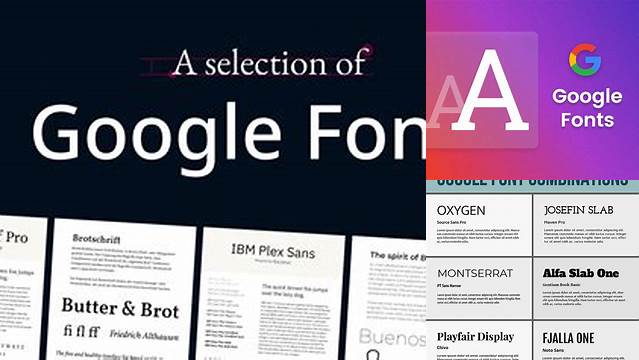
Best Google Fonts: Combinations For Stunning Designs
Choosing the right font can significantly impact the look and feel of your website or design project. Fonts play a crucial role in conveying your message and creating a visual hierarchy. With a vast library of fonts available, Google Fonts offers a fantastic resource for designers and developers alike. However, with so many options, finding the perfect font combination can feel overwhelming. This guide will walk you through the process of selecting the best Google Fonts combination for your specific needs, providing practical tips and examples to help you make informed decisions.
Understanding Font Pairing Basics
Before diving into specific font combinations, itβs essential to understand the basic principles of font pairing. The goal is to create a harmonious and visually appealing design by combining fonts that complement each other. A well-paired font combination enhances readability, reinforces your brand identity, and elevates the overall aesthetic of your project. Think of it like putting together an outfit β you want pieces that work well together and create a cohesive look. When it comes to fonts, this means considering factors like contrast, hierarchy, and the overall tone you want to convey. For example, a clean and modern sans-serif font might pair well with a more classic serif font to create a balance between contemporary and traditional elements. Understanding these fundamentals will set you on the right path to mastering the art of font pairing.
Why is Font Pairing Important?
Font pairing is incredibly important because it directly impacts how your audience perceives your content. The right font combination can make your website or design project look professional, polished, and engaging. Conversely, a poor font pairing can make your content appear cluttered, confusing, or even amateurish. Consider the psychology of fonts β different fonts evoke different emotions and associations. A playful script font might be perfect for a children's book, but it would likely be out of place on a corporate website. Similarly, a heavy, bold font can convey strength and authority, while a light, delicate font might communicate elegance and sophistication. By carefully selecting fonts that work well together, you can create a visual experience that aligns with your brand and effectively communicates your message. Effective font pairing enhances readability, ensuring that your content is easy to digest. It also establishes a visual hierarchy, guiding the reader's eye and highlighting important information. Ultimately, the right font pairing is a powerful tool for enhancing your design and improving the user experience.
Key Principles of Font Pairing
To create a successful font pairing, there are several key principles to keep in mind. First, contrast is essential. Pairing a serif font with a sans-serif font is a classic approach because it provides visual distinction. Serif fonts, with their small decorative strokes, tend to convey a sense of tradition and formality, while sans-serif fonts, which lack these strokes, often appear more modern and clean. This contrast helps to differentiate between headings and body text, making your content more readable. Second, hierarchy is crucial for guiding the reader through your content. Use different font sizes and weights to establish a clear visual structure. For example, you might use a larger, bolder font for headings and a smaller, lighter font for body text. This helps readers quickly scan the page and understand the main points. Third, consider the overall tone of your design. Are you aiming for a professional and authoritative look, or something more playful and creative? The fonts you choose should reflect this tone. Finally, don't be afraid to experiment, but always ensure that your font choices are legible and harmonious. A good rule of thumb is to stick to a maximum of two or three fonts per project to avoid visual clutter. By following these principles, you can create font pairings that enhance your design and effectively communicate your message.
Top Google Font Combinations for 2024
Now, let's explore some of the top Google Font combinations that are popular in 2024. These pairings are not only visually appealing but also highly functional, making them suitable for a wide range of projects, from websites and blogs to marketing materials and presentations. We'll break down each combination, explaining why it works and suggesting the types of projects for which it's best suited. Whether you're looking for a classic and elegant pairing, a modern and minimalist combination, or something bold and creative, you'll find inspiration in this list. Remember, the best font combination for you will depend on your specific needs and preferences, but these examples offer a great starting point for your font pairing journey. By understanding why these combinations work well together, you can develop your own eye for effective font pairings and create designs that stand out.
1. Montserrat & Oswald
Montserrat and Oswald is a classic and versatile combination that works well for a variety of projects. Montserrat, a sans-serif font, has a clean and modern feel, making it ideal for headings and titles. Its geometric shapes and balanced letterforms give it a contemporary yet approachable vibe. Oswald, another sans-serif font, is slightly bolder and more condensed, making it a great choice for subheadings and body text. The contrast between the two fonts creates visual interest while maintaining a cohesive look. This combination is particularly well-suited for websites, blogs, and marketing materials that aim for a professional and polished appearance. The readability of both fonts ensures that your content is easy to scan and digest, while their distinct personalities add a touch of sophistication. Whether you're designing a corporate website or a stylish blog, Montserrat and Oswald is a reliable pairing that will elevate your design.
2. Open Sans & Roboto
Open Sans and Roboto is a pairing that embodies simplicity and readability. Open Sans, a humanist sans-serif font, is known for its clean lines and open forms, making it incredibly easy to read in a variety of sizes. Roboto, a neo-grotesque sans-serif font, has a dual nature, offering both a mechanical skeleton and friendly curves, which makes it versatile for both headings and body text. The combination of these two fonts creates a balanced and harmonious look, perfect for websites, applications, and user interfaces. Open Sans excels in longer passages of text, while Roboto adds a touch of modernity and technical flair. This pairing is particularly effective for projects that prioritize clarity and usability, such as educational websites, informational dashboards, and minimalist designs. The fonts' neutral personalities allow your content to take center stage, ensuring that your message is communicated effectively. If you're looking for a font combination that's both functional and aesthetically pleasing, Open Sans and Roboto is an excellent choice.
3. Playfair Display & Montserrat
Playfair Display and Montserrat is an elegant and sophisticated combination that blends tradition with modernity. Playfair Display, a transitional serif font, exudes timeless charm with its delicate serifs and graceful curves. It's particularly well-suited for headings, titles, and other display purposes where a touch of elegance is desired. Montserrat, as mentioned earlier, is a clean and modern sans-serif font that complements Playfair Display beautifully. The contrast between the serif and sans-serif fonts creates a visually appealing balance, making this pairing ideal for projects that aim to convey a sense of luxury and sophistication. This combination works exceptionally well for fashion blogs, wedding invitations, high-end branding, and editorial designs. The Playfair Display adds a touch of formality and refinement, while Montserrat ensures that the overall design remains accessible and contemporary. If you're looking to create a design that's both stylish and readable, Playfair Display and Montserrat is a winning combination.
4. Lato & Lora
Lato and Lora offer a harmonious blend of modernity and readability, making them an excellent choice for a wide range of projects. Lato, a sans-serif font, is known for its clean and transparent design, which makes it incredibly versatile for both headings and body text. Its semi-rounded details add a touch of warmth and friendliness, making it approachable and easy to read. Lora, a serif font, has roots in calligraphy, giving it an elegant and refined appearance. It's particularly well-suited for body text, where its well-balanced letterforms and distinct serifs enhance readability. The combination of Lato and Lora creates a balanced and inviting aesthetic, perfect for blogs, online magazines, and websites that prioritize user engagement. This pairing is especially effective for content-rich sites where readability is paramount. Lora's classic serif style adds a touch of sophistication, while Lato's modern sans-serif design ensures that the overall look remains fresh and contemporary. If you're looking for a font combination that's both stylish and functional, Lato and Lora is a fantastic choice.
5. Raleway & Roboto
Raleway and Roboto is a modern and versatile pairing that works well for a variety of design projects. Raleway, a sans-serif font, has an elegant and slightly geometric design, making it a great choice for headings and titles. Its clean lines and distinct letterforms give it a sophisticated yet approachable feel. Roboto, as discussed earlier, is a neo-grotesque sans-serif font that offers both a mechanical skeleton and friendly curves, making it versatile for both headings and body text. The combination of these two fonts creates a balanced and harmonious look, perfect for websites, applications, and marketing materials. Raleway adds a touch of elegance and modernity, while Roboto ensures that the overall design remains readable and user-friendly. This pairing is particularly effective for projects that require a clean and contemporary aesthetic, such as tech websites, startups, and digital agencies. The contrast between the two fonts creates visual interest while maintaining a cohesive look. If you're looking for a font combination that's both stylish and functional, Raleway and Roboto is an excellent choice.
In conclusion, selecting the best Google Fonts combination is a crucial step in creating visually appealing and effective designs. By understanding the principles of font pairing, exploring popular combinations, and utilizing available tools and resources, you can confidently choose fonts that align with your brand, enhance readability, and elevate the overall aesthetic of your project. Remember to consider your brand identity, the purpose of your design, and the importance of legibility and readability. Don't be afraid to experiment and seek inspiration from existing designs. With the right font combination, you can create a lasting impression and effectively communicate your message. So go ahead, dive into the world of Google Fonts, and discover the perfect pairings for your next design endeavor. Your typography choices can make all the difference in how your work is perceived, so take the time to select fonts that truly reflect your vision and goals.